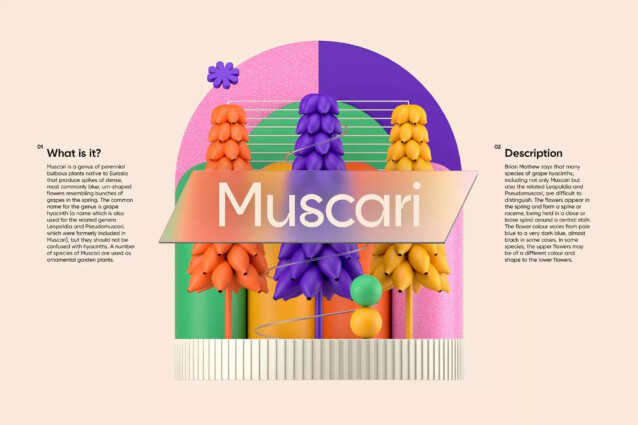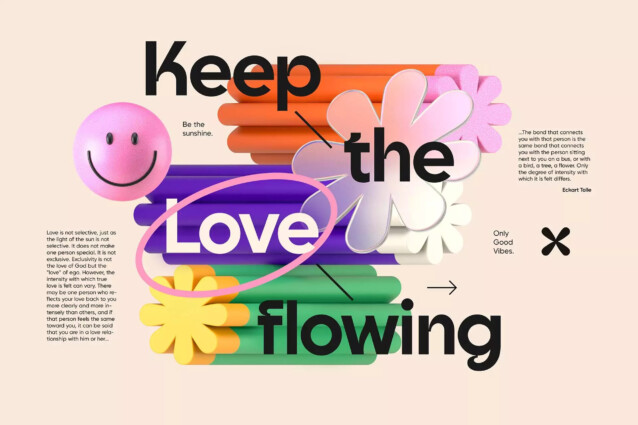
Goia Font
Goia Font is modern sans font insprire by modern grotesque with geometric details and deep in industrial design principles. It’s a variable sans serif typeface available in 2 styles: A first one, very readable with a touch of originality, ideal for body text and a second one “Display”, more impactful with a more assertive originality. Both styles are available in a variable or static version (9 weights + italics) with many alternates divided into 3 stylistic sets.
Whether you are working on a branding project, an editorial project or any other graphic project, Goïa™ is the perfect choice for a modern and elegant look with a touch of personality.